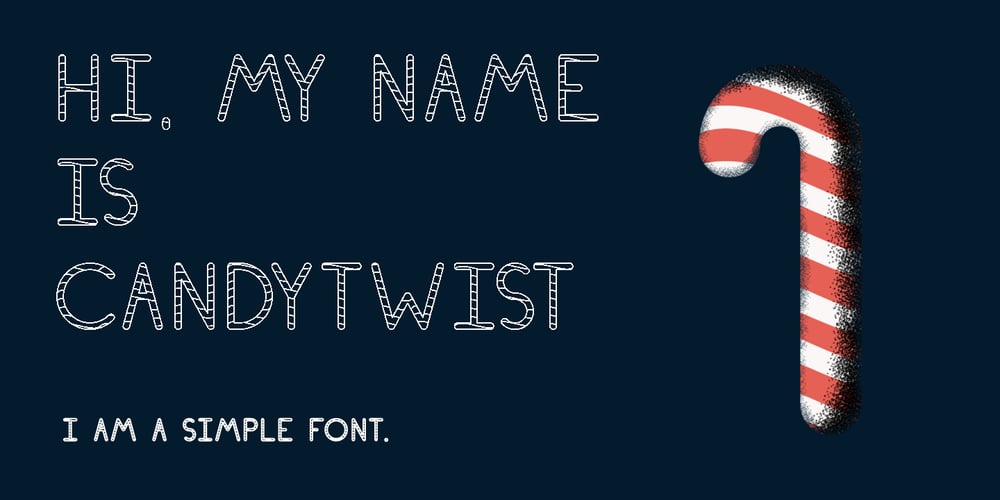
Candytwist Font Family was designed by Roy Bristros and published by Moderinatos. Candytwist contains 1 styles and family package options. Candytwist is a stylistic sans-serif font with unique patterns for a holiday season vibe. Geometric yet stylistic, it gives a modern holiday look while having some retro tones. Most notably, the stylistic & symbol will make your branding applications impeccable! Candytwist’s features include: A Christmas vibe Multilingual support with most latin languages. Rounded strokes Candy cane design With a minimal and festive design, this font fits with seasonal brands, advertisements, festive publications and more!